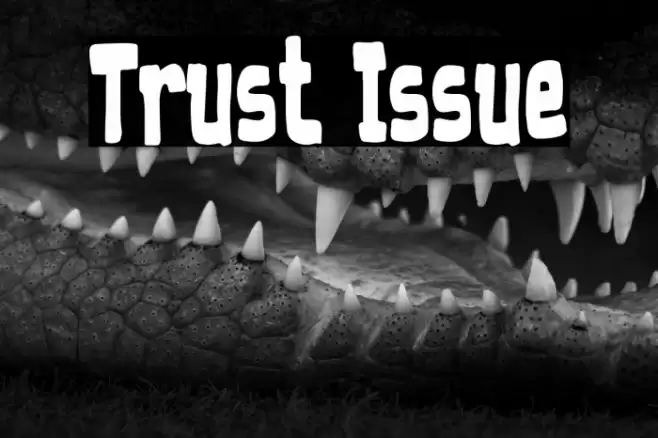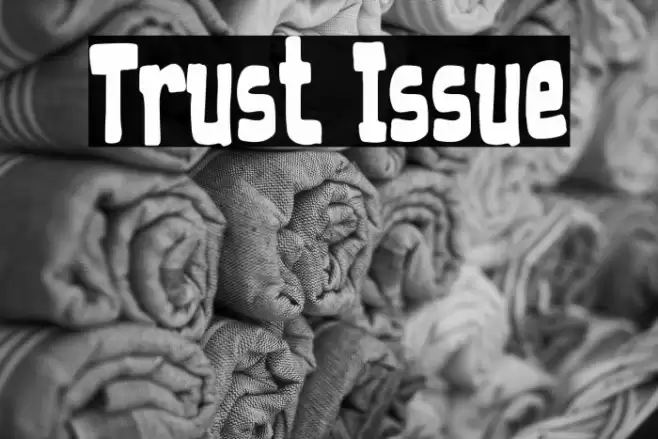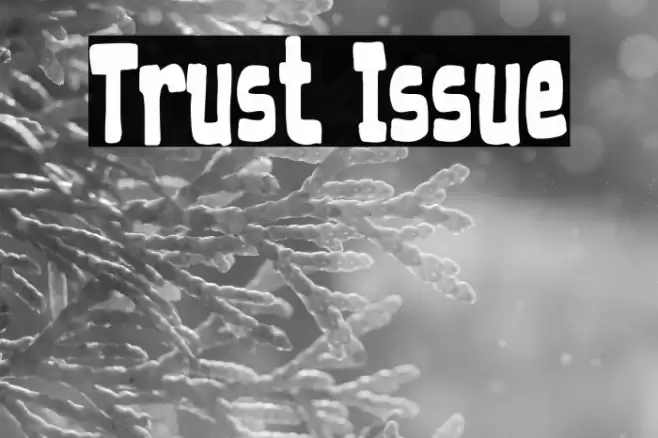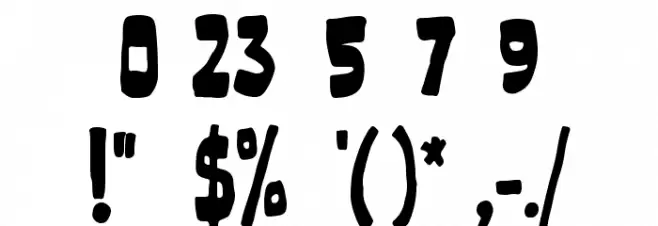
Trust Issue Font
Trust Issue Description
This font features a bold and playful design with a hand-drawn aesthetic. The characters are thick and slightly irregular, giving them a whimsical and informal appearance. The uppercase and lowercase letters maintain a consistent style, with rounded edges and a slightly uneven baseline, enhancing the casual feel. The numbers and special characters follow the same design principles, ensuring a cohesive look across all glyphs. This font's unique style makes it stand out, perfect for projects that require a touch of creativity and fun.
A bold, playful font with a hand-drawn, whimsical style from Regular fonts.
- Proposed Projects: Ideal for children's books, playful branding, posters, and creative design projects.
- Overall Style: Playful, Hand-drawn